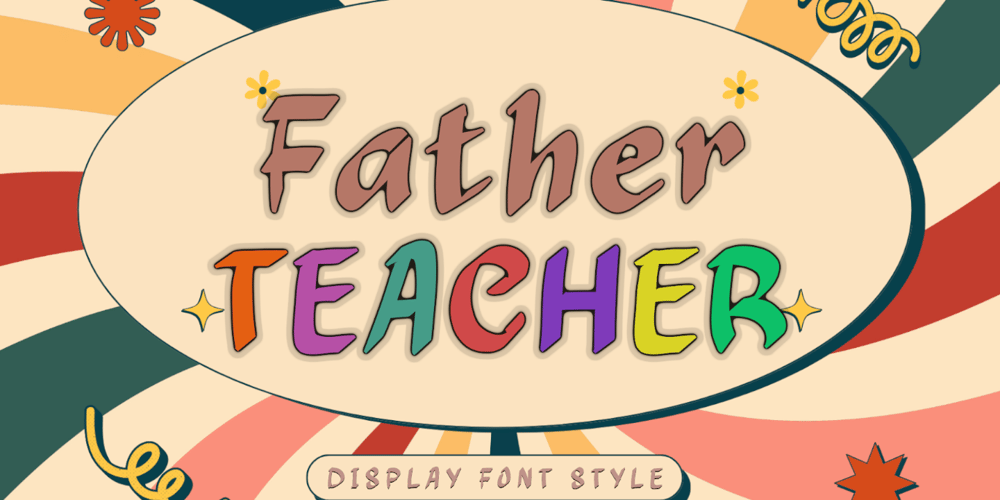
Father Teacher
Father Teacher font
Father Teacher Font Family was designed by Isroni Yoga Prasetya and published by Yoga Letter. Father Teacher contains 1 styles and family package options. “Father Teacher” is an elegant and unique display font. This font is equipped with uppercase, lowercase, numerals, punctuations and multilingual support. Very suitable for summer, teachers, 4th of July, Halloween, Christmas, branding, stickers, posters, prints and others.